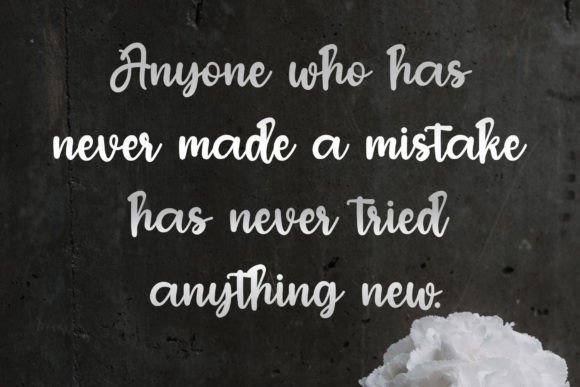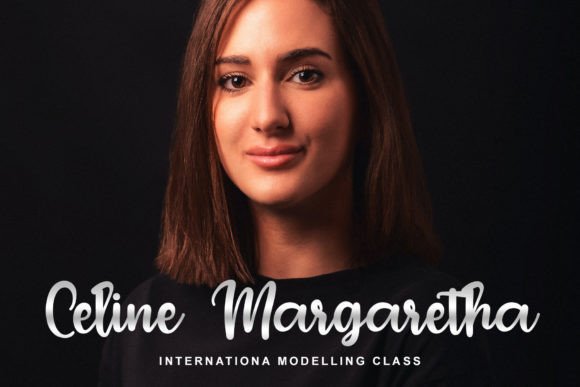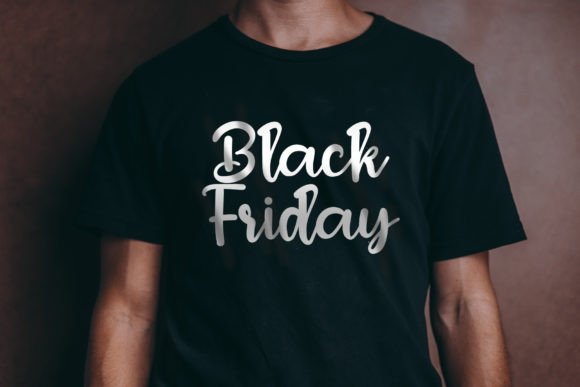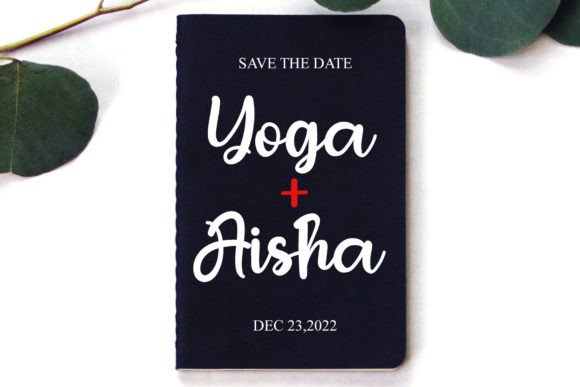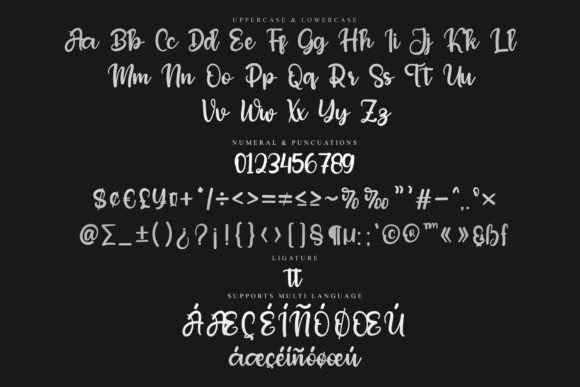
The Astrology Font: A Stylish and Modern Handwritten Font for Your Designs
Have you ever been in the middle of a design project, and suddenly, you just can’t seem to find the right font? I know I have. It was a few months ago when I was working on a branding project for a new wellness center. The client wanted a font that was both modern and elegant, but I just couldn’t seem to find the perfect fit. That’s when I stumbled upon the Astrology Font.
This stylish and modern handwritten font has been a game-changer for my designs, and I’m excited to share my experience with you. From greeting cards to headlines, branding, and packaging, the Astrology Font is sure to add a lovely touch to your designs.
- ✨ The font’s unique and elegant handwritten style, perfect for adding a personal touch to your designs.
- ✅ The font’s versatility – it can be used for a wide range of applications, from formal to informal designs.
- 💫 The font’s modern and fresh feel, making it perfect for contemporary designs.
While the Astrology Font is an amazing font, there are a few things to keep in mind. ⚠️ Some users have reported that the font can be a bit tricky to read in smaller sizes, so it’s best to use it for headlines or titles rather than body text. 🤔 Additionally, the font’s stylistic alternates can take some getting used to, but once you understand how to use them, you’ll love the added flexibility.
The Astrology Font was designed by a team of typographers who wanted to create a font that was both modern and elegant. The font’s unique handwritten style is inspired by the stars and the night sky, giving it a celestial feel that’s perfect for designs that require a touch of magic.
Q: What is the Astrology Font?
A: The Astrology Font is a stylish and modern handwritten font designed for a wide range of applications, from greeting cards to headlines, branding, and packaging.
Q: Is the Astrology Font easy to read?
A: The Astrology Font is generally easy to read, but it can be a bit tricky in smaller sizes. It’s best to use it for headlines or titles rather than body text.